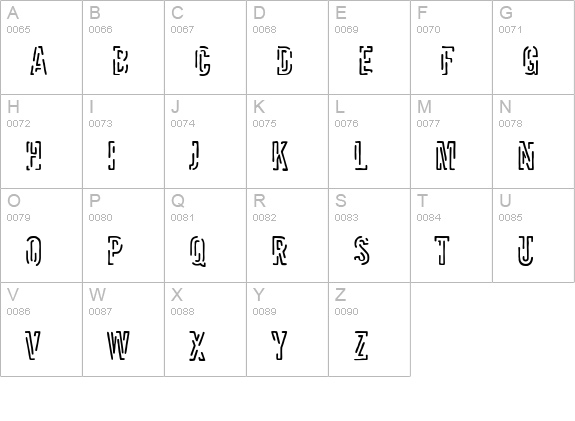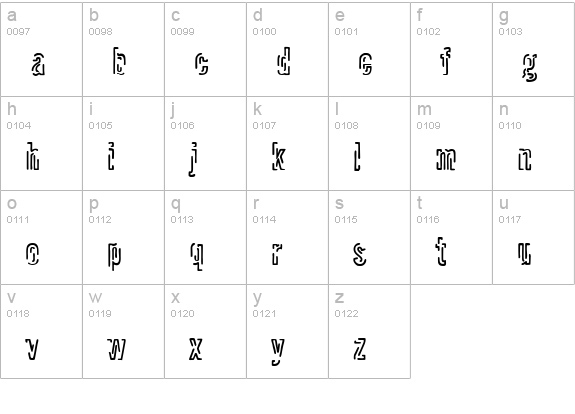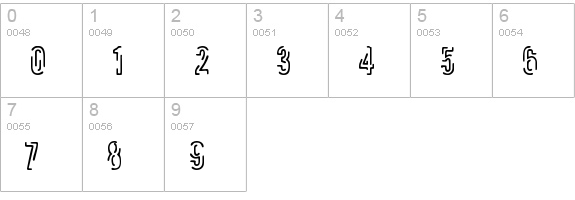
Packet Font Details
Introducing Packet font, a stunning typeface that combines modern elegance with a touch of vintage charm. This versatile font is perfect for various design projects, ranging from logos and branding to posters and invitations. With its clean lines and unique letterforms, Packet font effortlessly captures attention and adds a touch of sophistication to any visual composition. Its bold yet refined look makes it suitable for both professional and creative endeavors, allowing you to convey your message with style and flair. What sets Packet font apart is not only its aesthetic appeal but also its accessibility. It is freely available to download at FontsMarket.com, making it an excellent choice for designers and enthusiasts on a budget. By offering this font free of charge, the creators of Packet font have made it accessible to a wider audience, encouraging creativity and innovation in design. Whether you're a seasoned designer or a beginner exploring the world of typography, Packet font offers a delightful and hassle-free experience. Its well-crafted letterforms ensure legibility at any size, while its extensive character set provides versatility and flexibility in your design projects. Embrace the beauty of Packet font and elevate your designs to new heights. Download it today at FontsMarket.com and unlock a world of possibilities. Let Packet font be your creative companion as you embark on exciting design ventures, and see your ideas come to life with ease and grace.